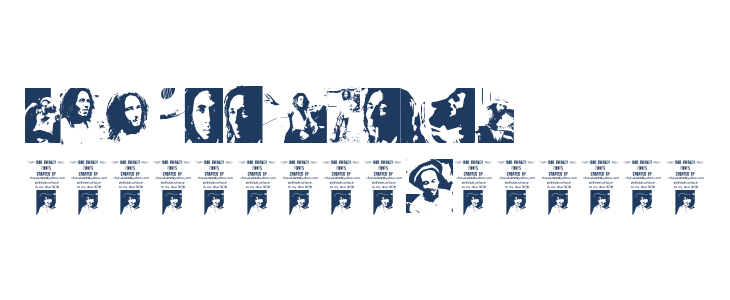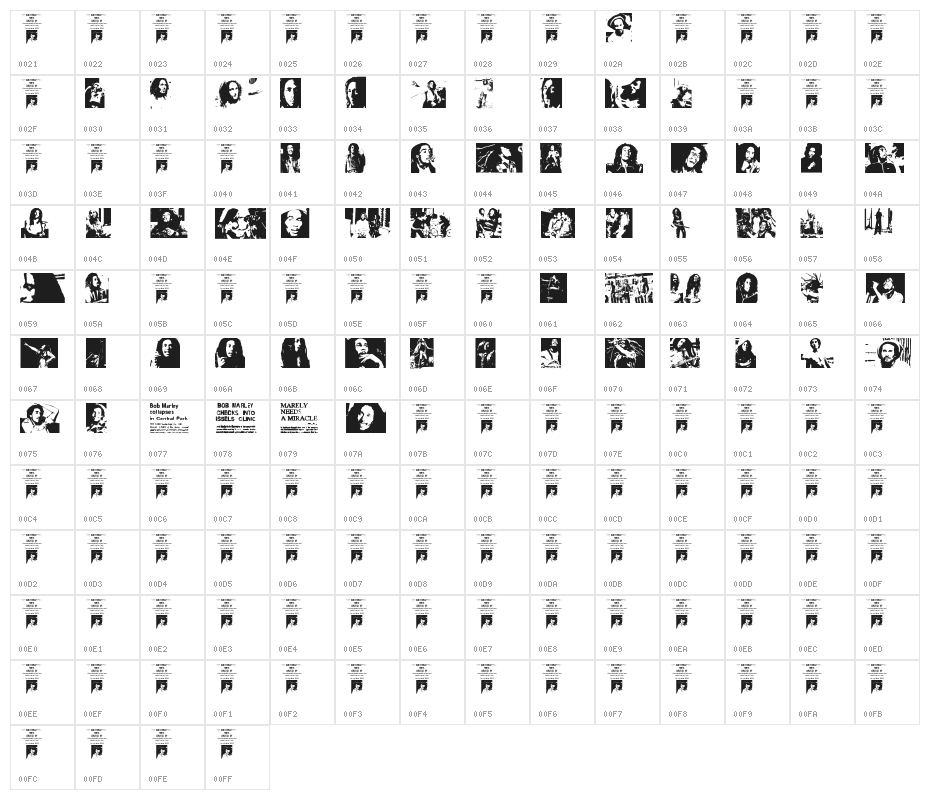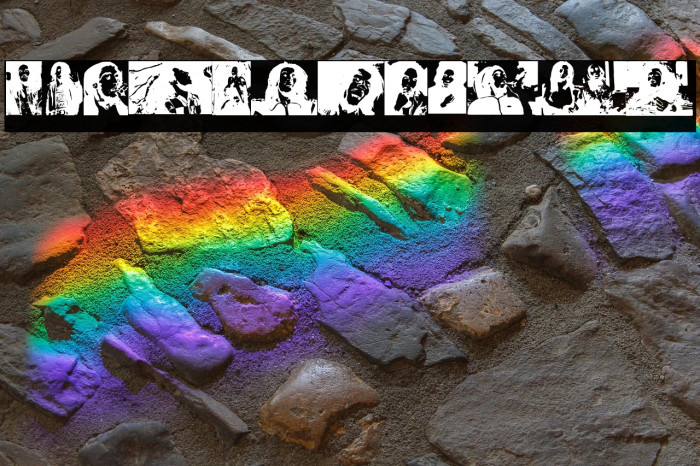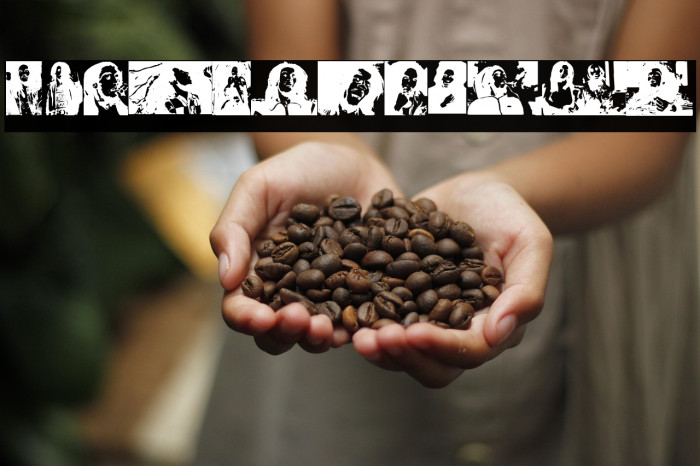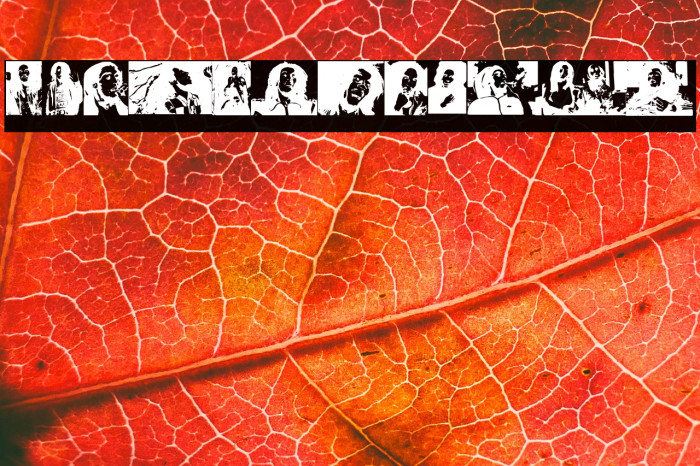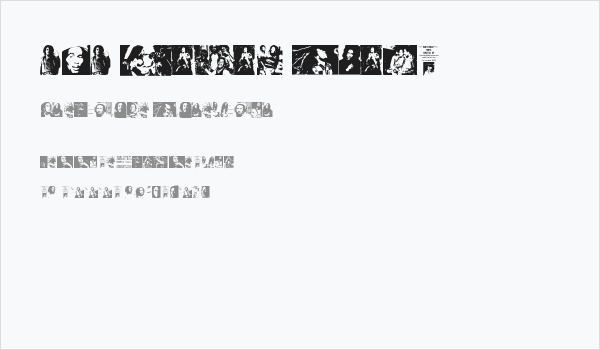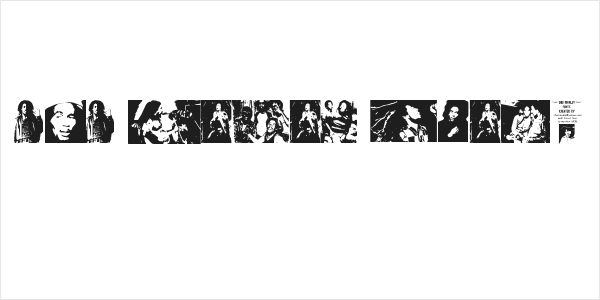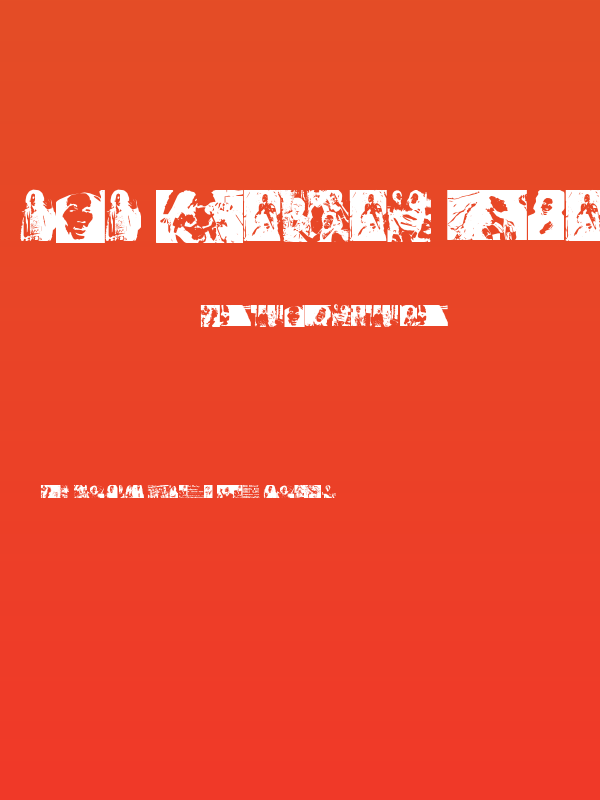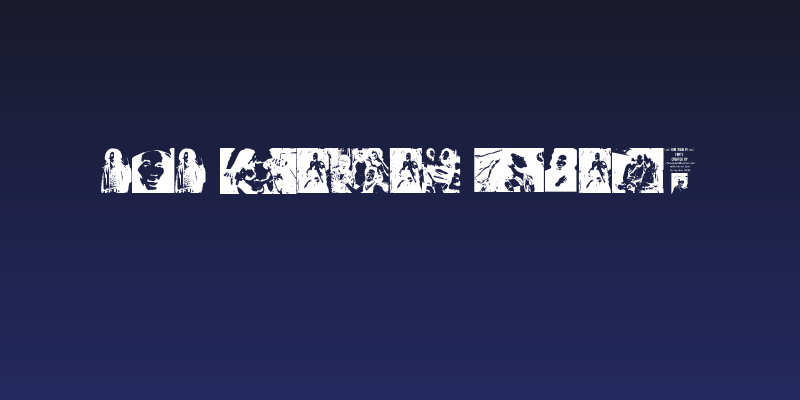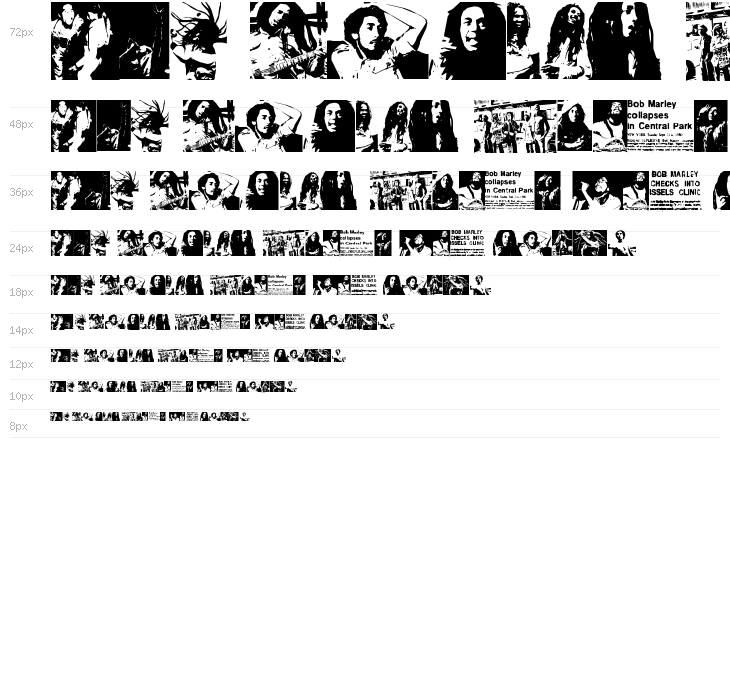
BOB NEVER DIES! Font
BOB NEVER DIES! Description
A highly decorative and unconventional font composed of black-and-white photographic images, each character formed by a unique photo or collage, resulting in a visually striking and artistic typeface. The images appear to be themed around a specific individual, creating a strong visual identity.
| Overall Style | Decorative, Artistic, Thematic |
| Use Case | Headlines, Logos, Posters, Artistic projects |
| Proposed Projects | Posters, album covers, event promotions, tribute designs, art installations. |